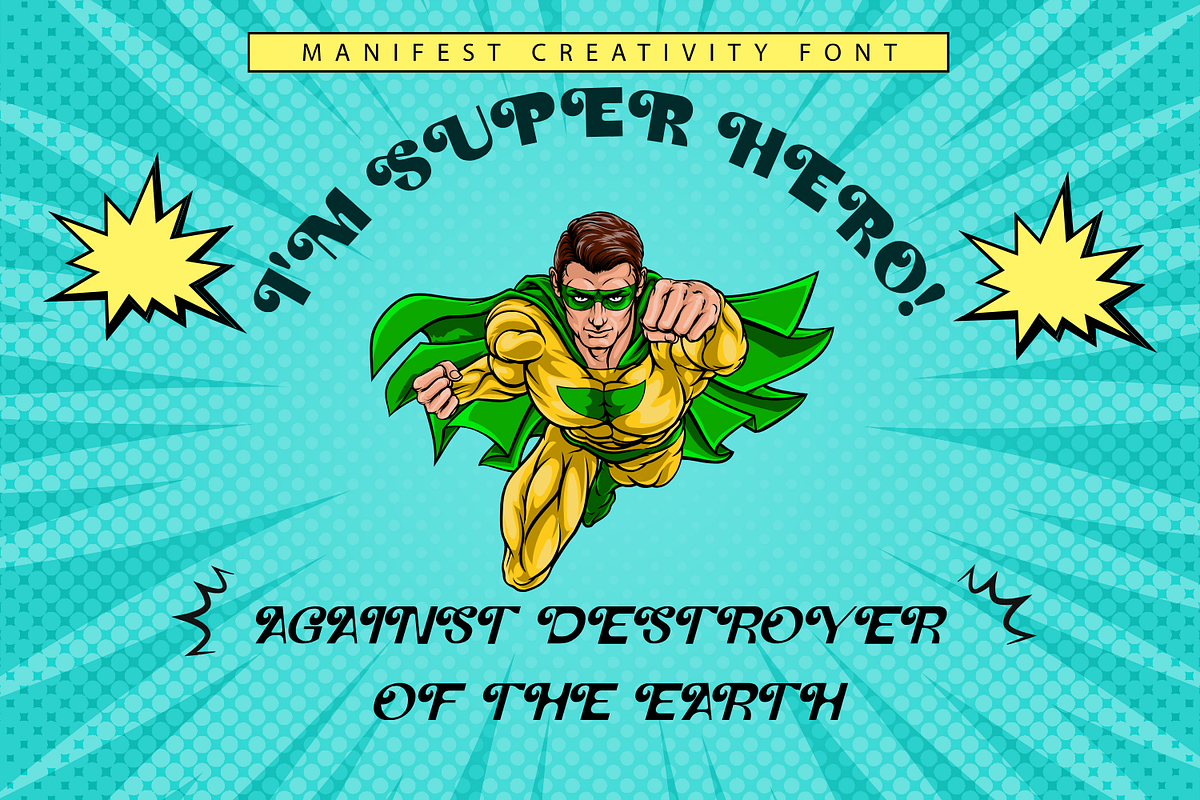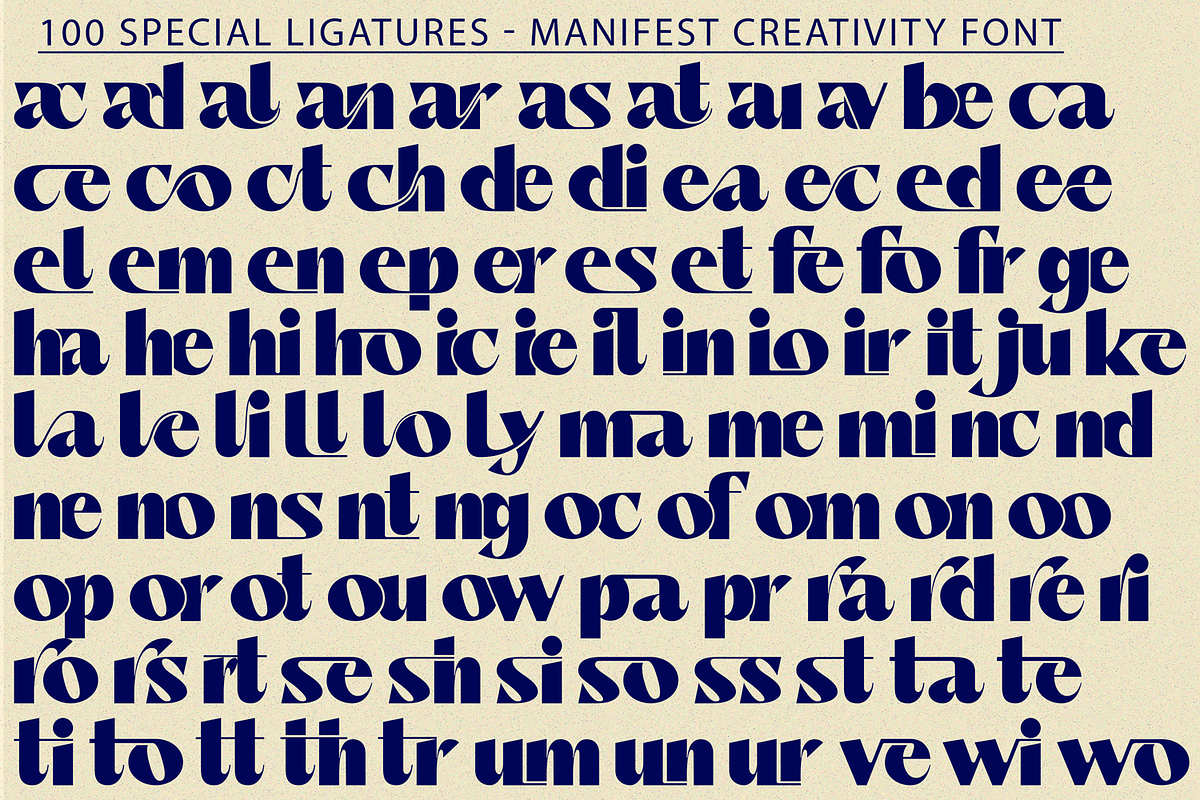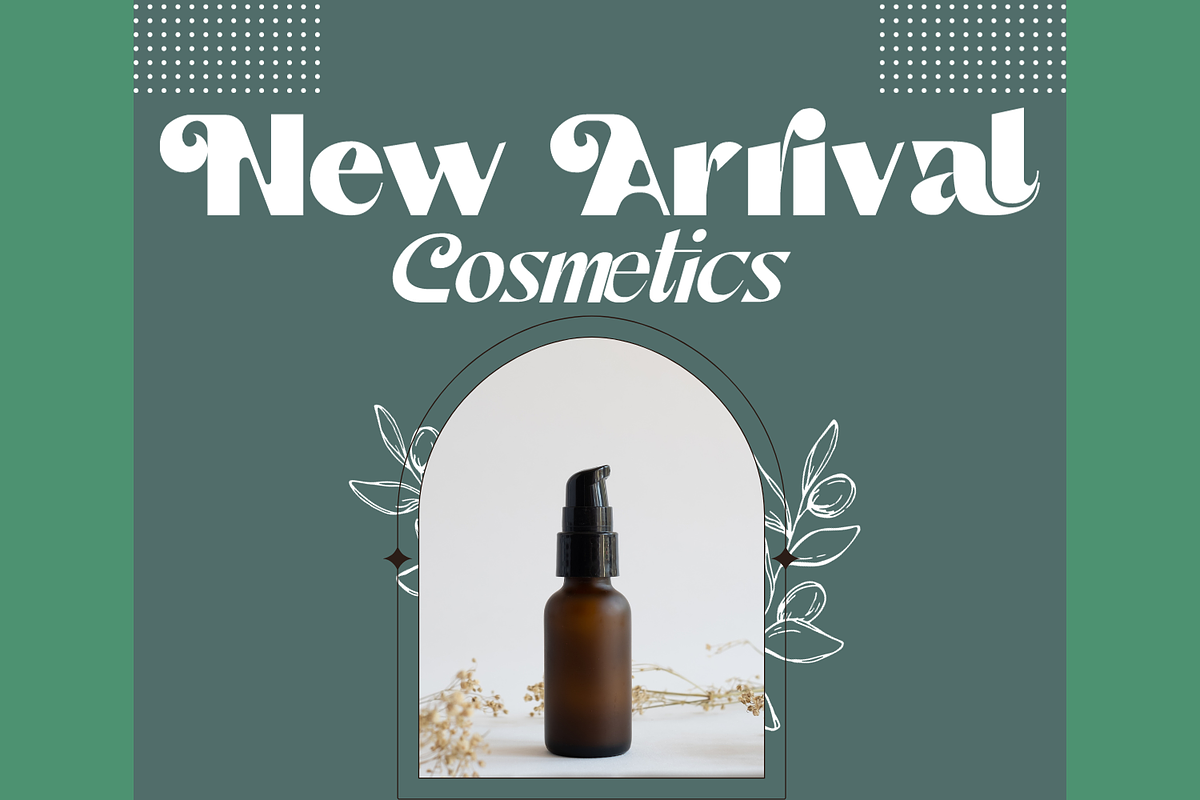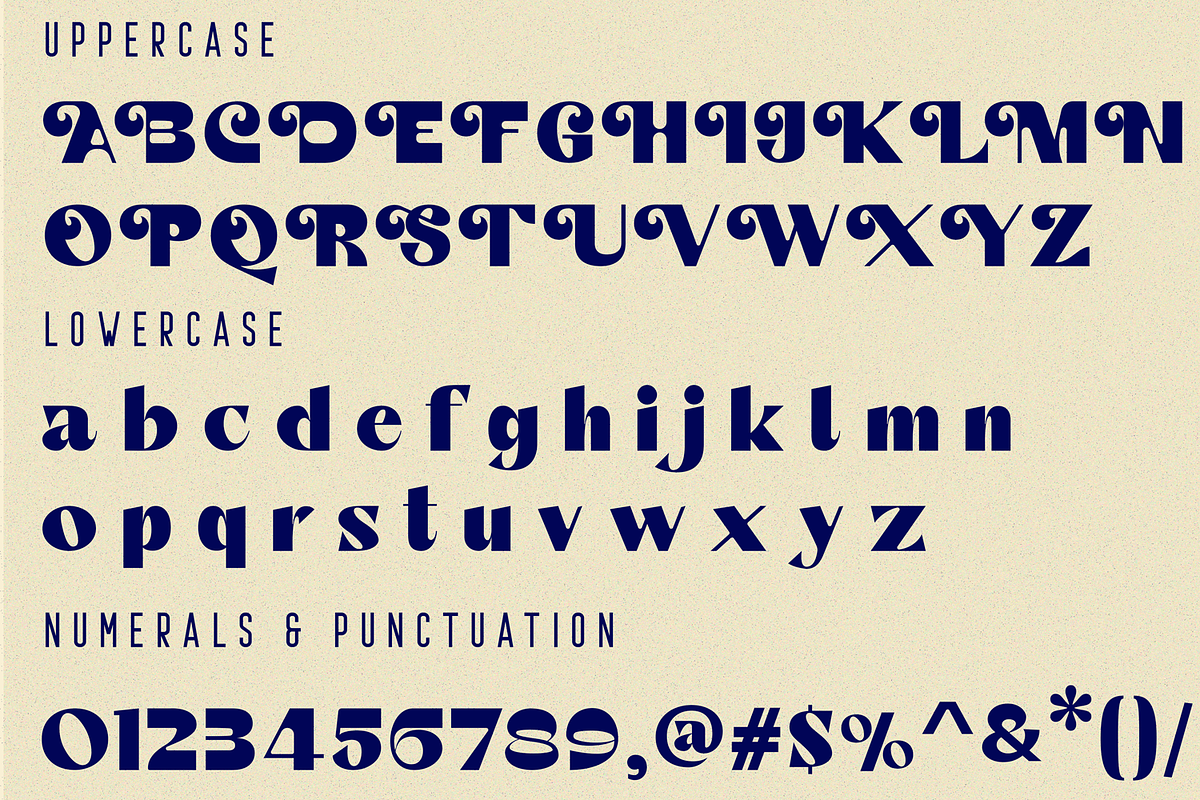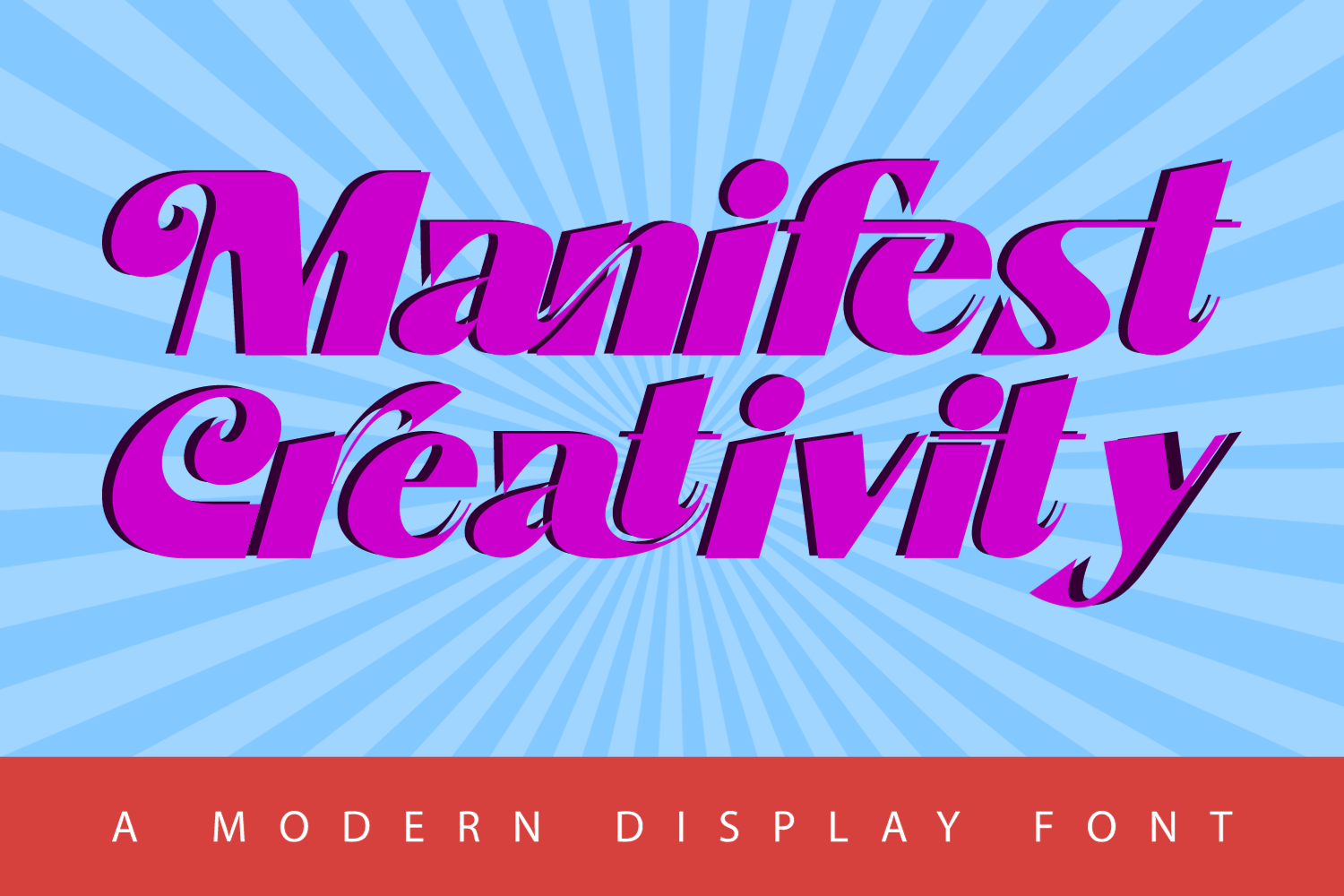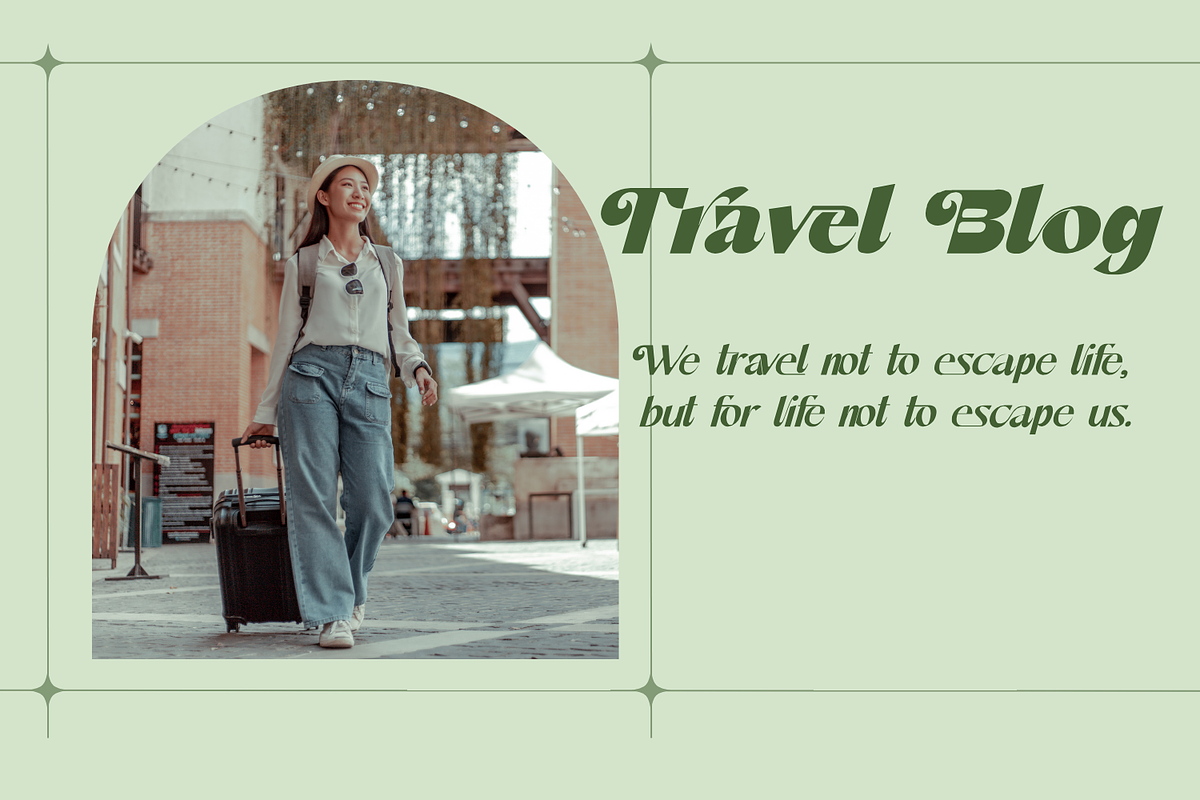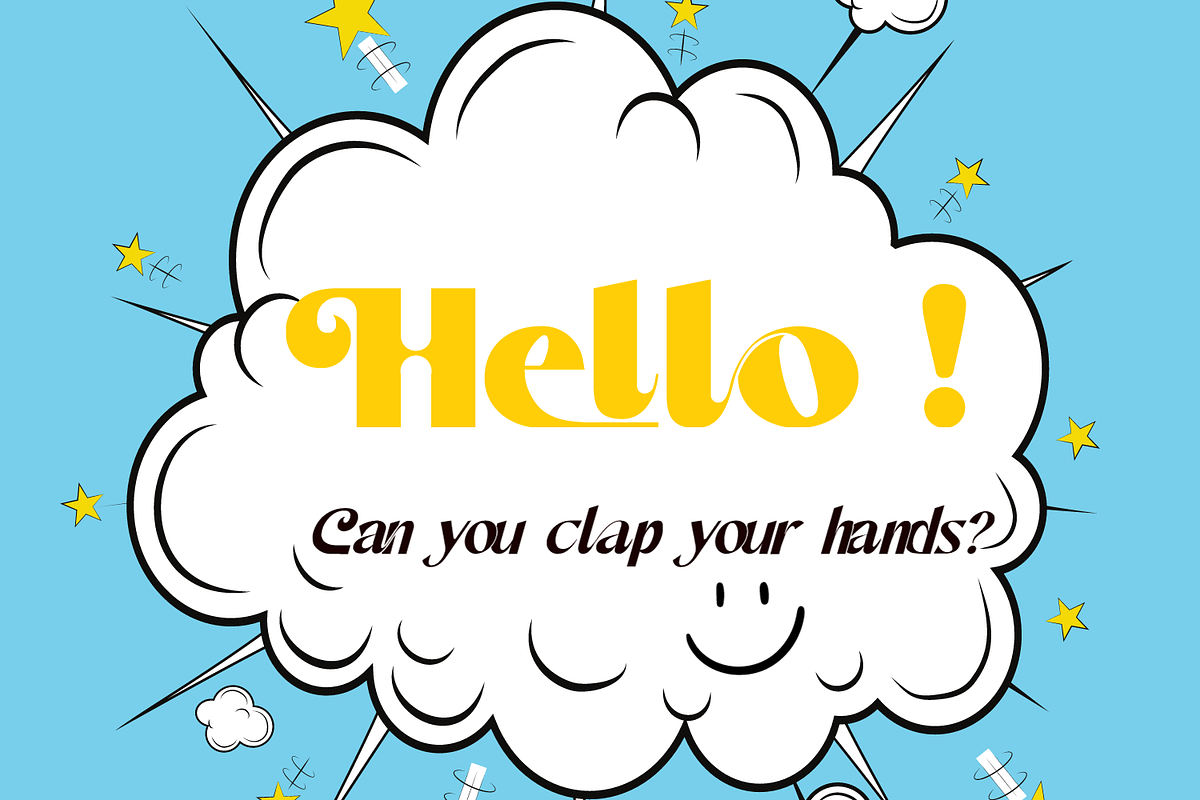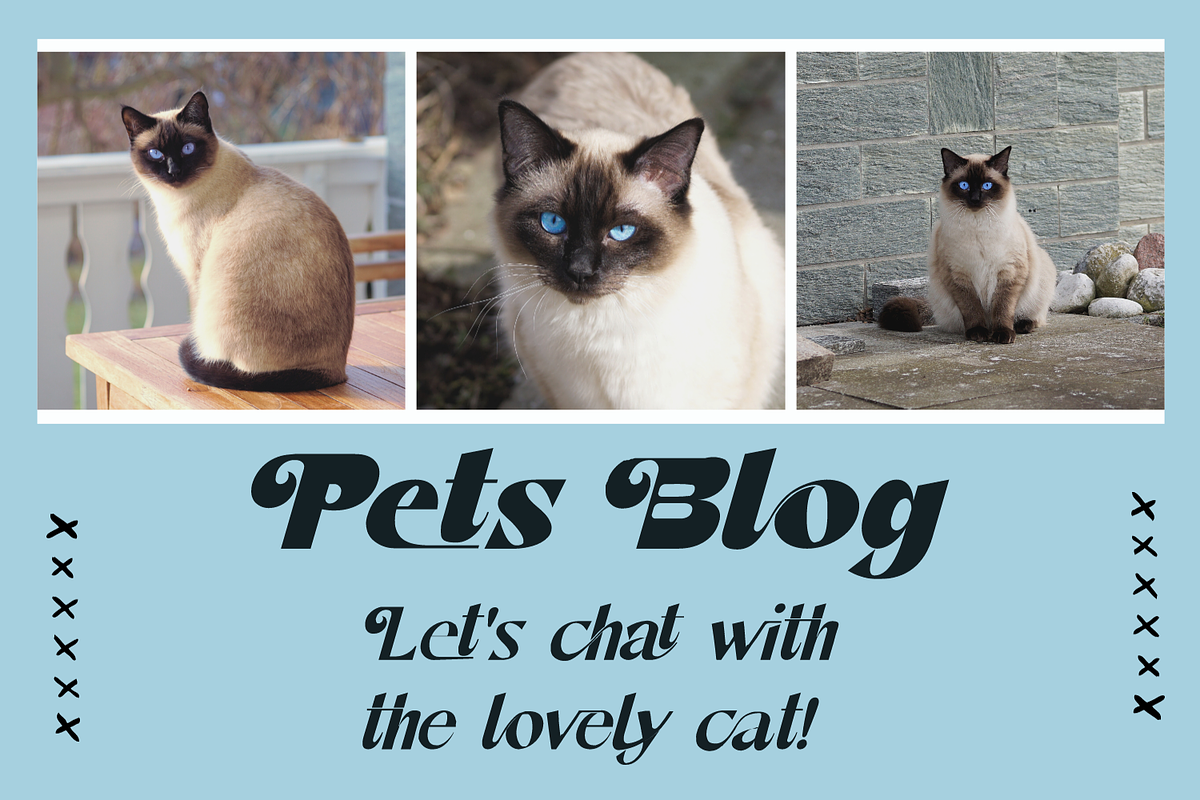
Manifest Creativity Font
Manifest Creativity Font is a big, chunky and retro display font that is suitable for headers and text. Not only big, but this font has geometric shapes that can make your designs stand out. This contrasting appearance makes the font perfect for use in big titles, headlines, branding projects, editorial layouts & so much more!
Manifest Creativity was built with OpenType features and includes 100 ligatures, alternate, numbers, punctuation, and it also supports other languages.
ac ad al an ar as at au av be ca ce ch co ct de di ea ec ed ee el em en ep er es et fe fo fr ge ha he hi ho ie ic il in io ir is it ju ke la le li ll lo ly ma me mi nc nd ne ng no nt ns oc of om on oo op or ot ou ow pa pr ra rd re ri ro rs rt se sh si so ss st ta te th ti to tr tt um un ur ve wi wo